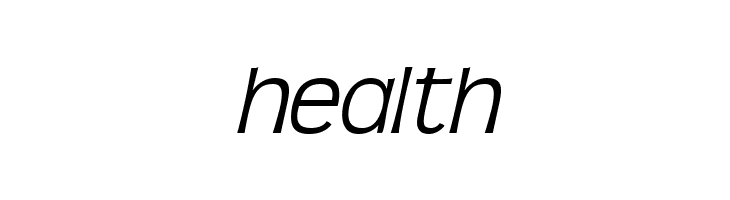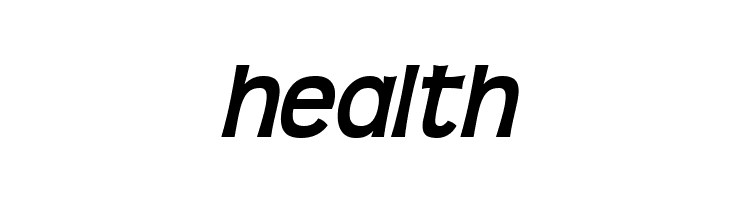
A modern, rounded font with a friendly and approachable design.
A bold, rounded font with smooth curves and a friendly appearance.
A modern serif font with a subtle italic slant, combining elegance and readability.
A light, elegant italic font with a refined and sophisticated style.
A bold, modern slab serif font with geometric precision and strong presence.
A bold, italic serif font with a modern and dynamic style.
A modern serif font with clean lines and a balanced design.
A modern, light serif font with elegant proportions and subtle contrast.
An ornate and decorative typeface with intricate detailing and flourishes.
A refined, elegant serif font with thin strokes and a classic touch.
An elegant and sophisticated serif typeface with classic proportions.
A bold, elegant serif font with high contrast and classic styling.
A refined serif font with a semi-bold weight and elegant, upright style.
A refined serif font with medium weight and elegant, upright letterforms.
A classic serif font with elegant strokes and balanced proportions.
A clean, modern sans-serif font with a minimalist design.
A modern, clean font with rounded edges and consistent stroke width.
A sleek, extra-light, italic sans-serif font with a modern and elegant style.
A modern, thin sans-serif font with clean lines and high legibility.
A modern sans-serif font with balanced proportions and excellent readability.
A modern, slightly italic typeface with clean lines and moderate contrast.
A modern, italic sans-serif font with balanced weight and clear legibility.
A sleek, thin, and italicized font with a modern and elegant design.
A bold, modern sans-serif font with a clean and confident appearance.
A bold, geometric font with sharp, angular edges and a strong presence.
A bold, blocky font with a strong geometric style, perfect for impactful headlines.
A bold, geometric font with angular lines and a blocky appearance.
A bold, rounded font with a playful and modern geometric style.